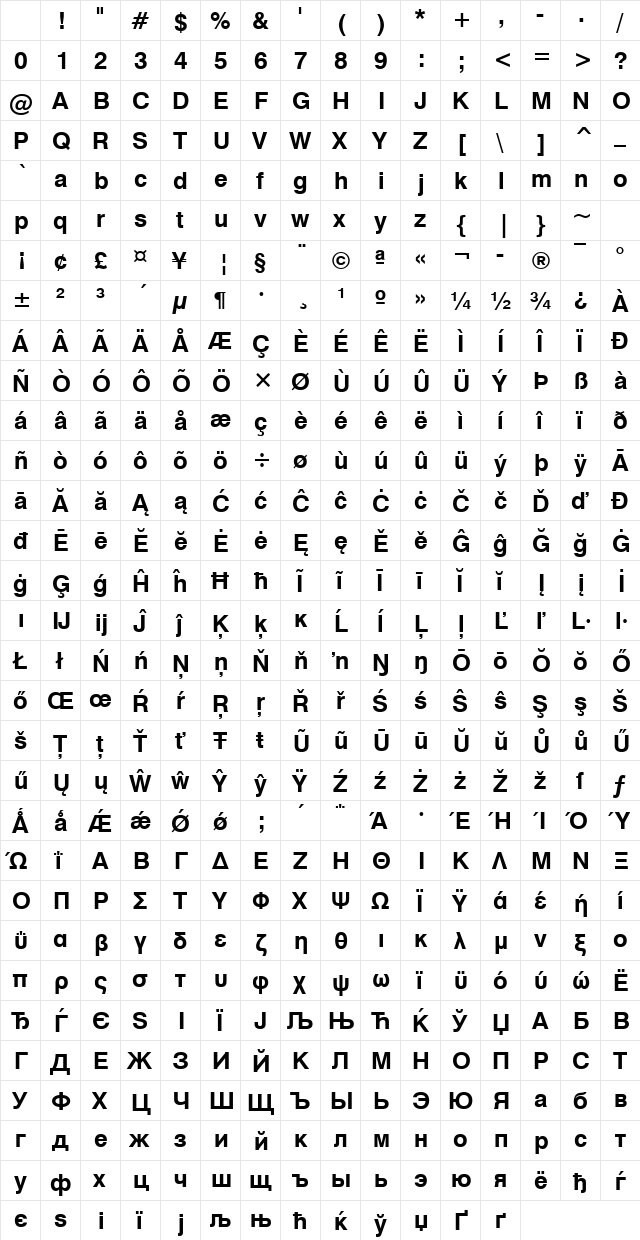
Complete Swis721 WGL4 BT Bold glyph index. Displaying only characters natively supported by Swis721 WGL4 BT Bold font.
Swis721 WGL4 BT is a composed and adaptable typeface that performs quietly and consistently across a wide range of design contexts. Its bold stroke weight gives it real presence on the page.